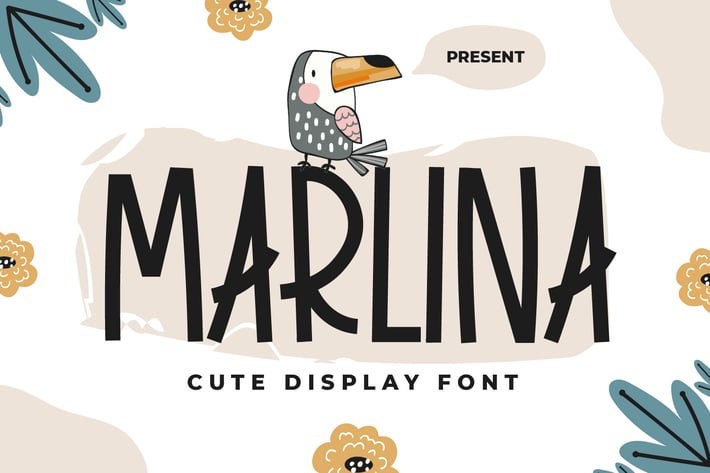
Marlina - Cute Display Font
Introducing Marlina - Cute Display Font
Marlina is a cute and quirky display font. It will add an incredibly joyful touch to your designs. Add this beautiful display font to each of your creative ideas and notice how it makes them stand out!
This font is perfect for quotes, shirt designs, websites, branding, children’s designs, blogs, logos, invitations and more!